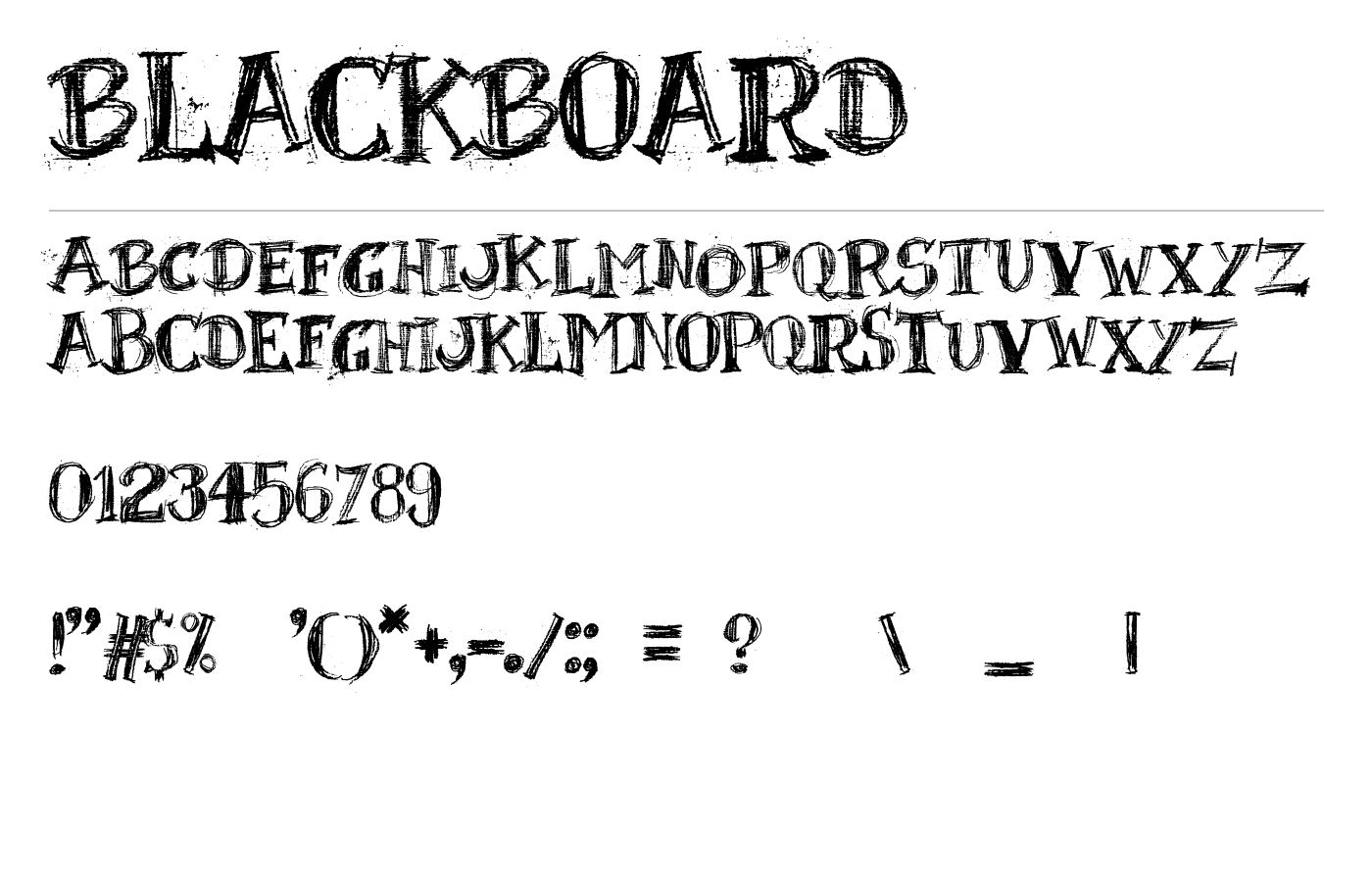
BlackBoard is a distinctive serif font with a hand-drawn, chalkboard-inspired look that brings a rustic and artistic feel. Its rough, textured strokes and irregular shapes give it a playful yet vintage personality, making it ideal for creative projects, informal branding, and designs that seek a handcrafted, nostalgic touch. This font works best in headlines, posters, and packaging where a bold, expressive style is needed to capture attention.
BlackBoard Font
About BlackBoard Font